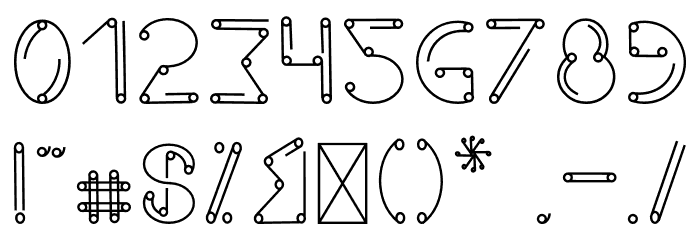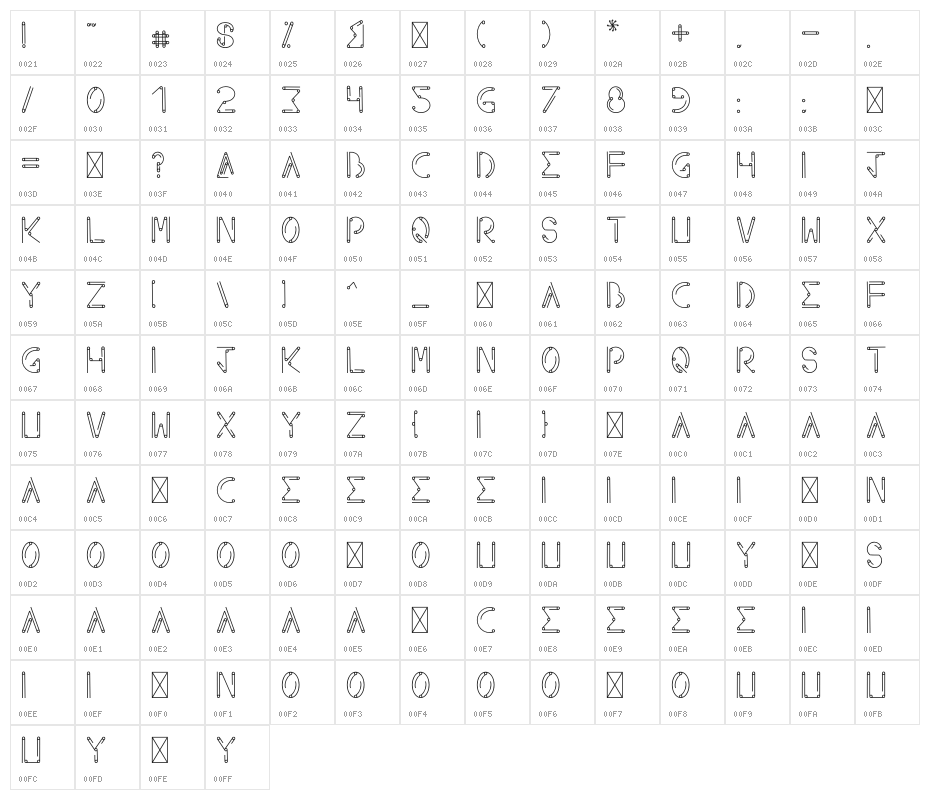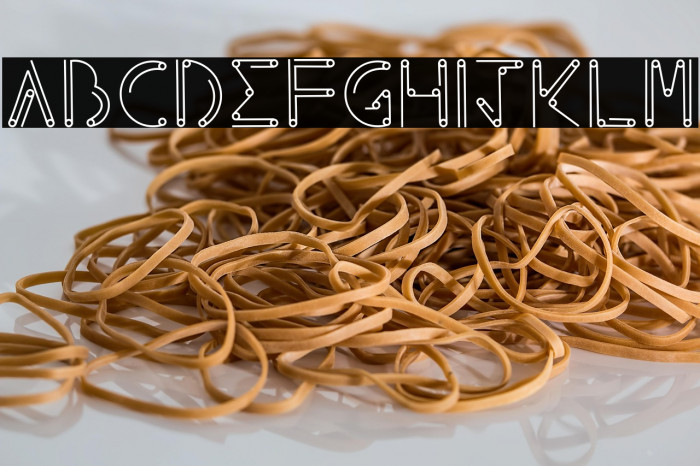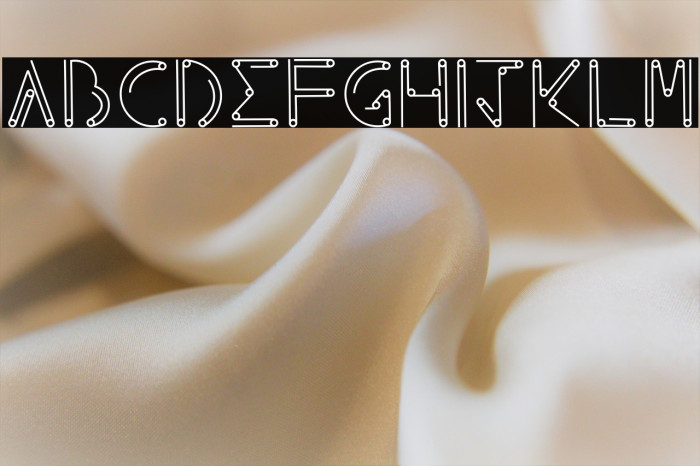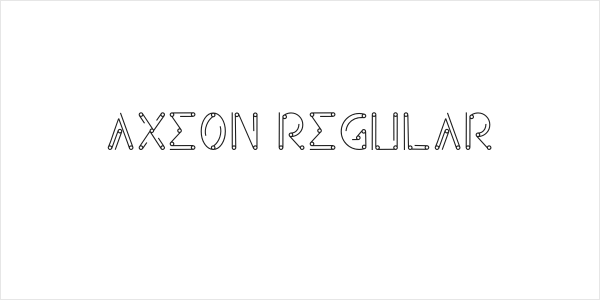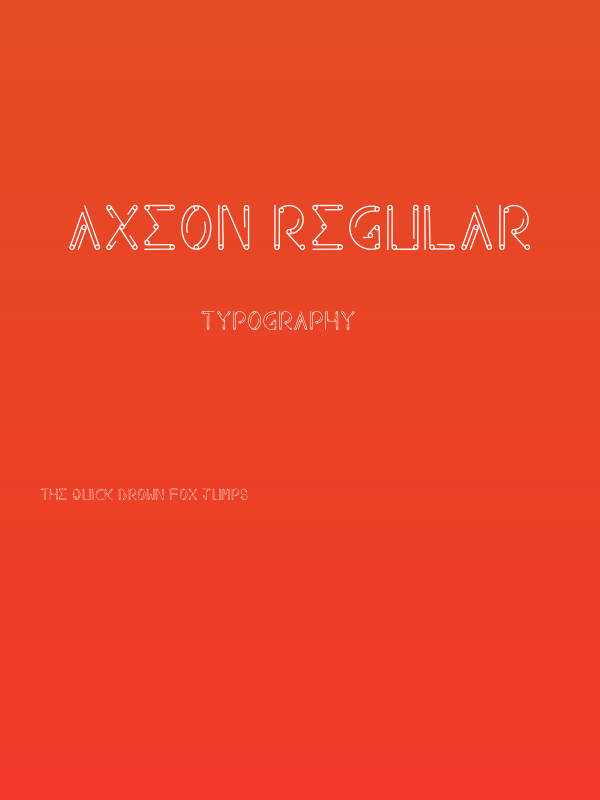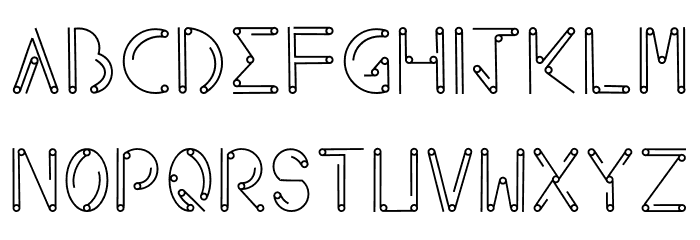
AXEON Regular Font
AXEON Regular Description
This font features a unique, futuristic design with a geometric and mechanical aesthetic. Each character is constructed with a series of lines and dots, resembling a circuit board or technical diagram. The uppercase and lowercase letters maintain a consistent style, with angular shapes and precise line work. Numbers and special characters follow the same design principles, creating a cohesive and visually striking typeface. The font's distinct style makes it ideal for projects that require a modern and technological feel.
| Proposed Projects | Ideal for technology branding, sci-fi themed projects, digital interfaces, and modern art installations. |